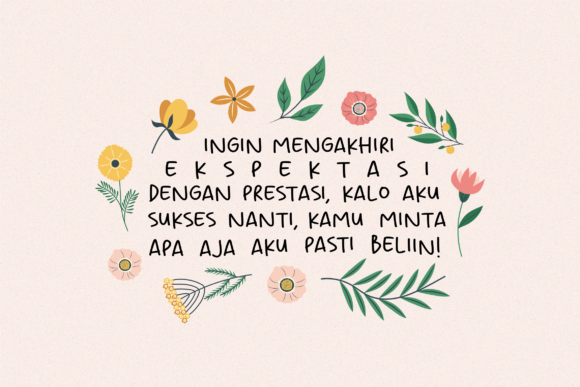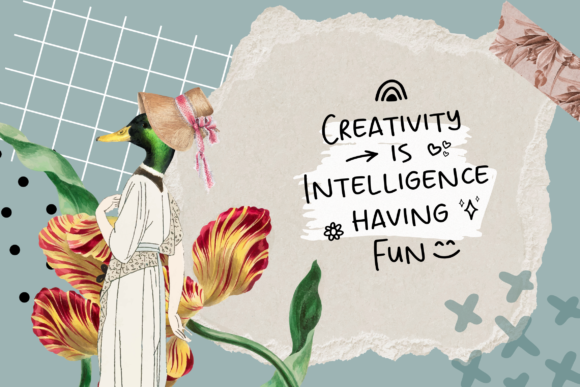
Chicola Smoothy Font
db-ku.com - Script & Handwritten -- Chicola Smoothy is a cute and simple lettered handwritten font that can be used for all chalkboard quotes or teaching material! Its authentic look will add a personal and realistic feel to your designs.